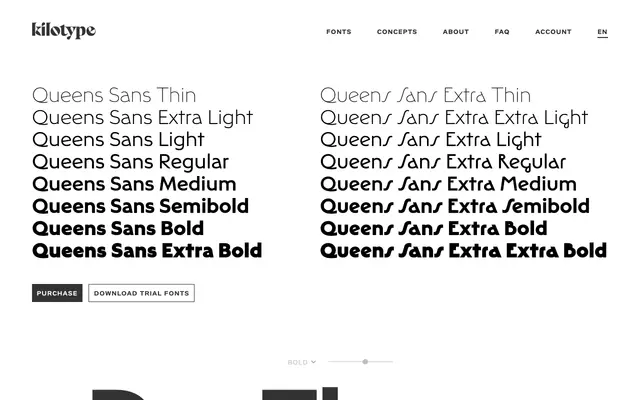
Queens Sans
Kilotype · Selma Losch · 2022
Queens Sans specimen from Kilotype
A geometric sans by Selma Losch that pairs restrained text weights with a high-contrast Art Déco Extra subfamily, sharing the tilted 'a' of its serif companion Queens.
Released in 2022, Queens Sans offers sixteen styles split between a workhorse Standard range and an ornate Extra range designed for expressive, large-scale use. Both subfamilies share a tilted single-storey 'a' inherited from Queens, giving the family a consistent personality across very different applications. OpenType features include seven numeral styles, arrows, symbols and dynamic mark positioning, alongside variable font support and coverage of over 400 Latin-script languages.
Queens Sans is a geometric sans with Art Déco influence, featuring a distinctive tilted 'a' and a split personality between restrained Standard styles and ornate Extra styles with pronounced geometric precision and period poise.